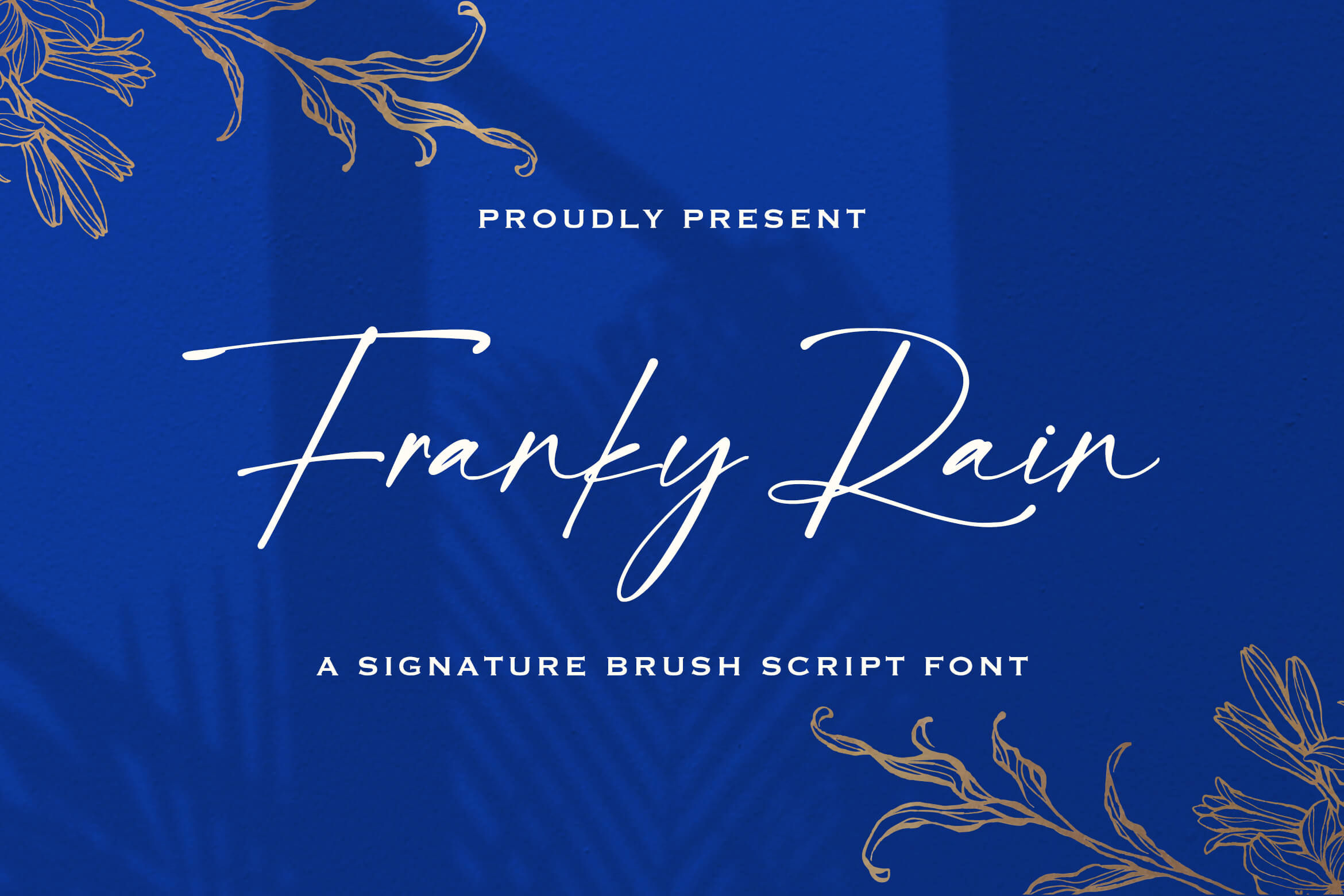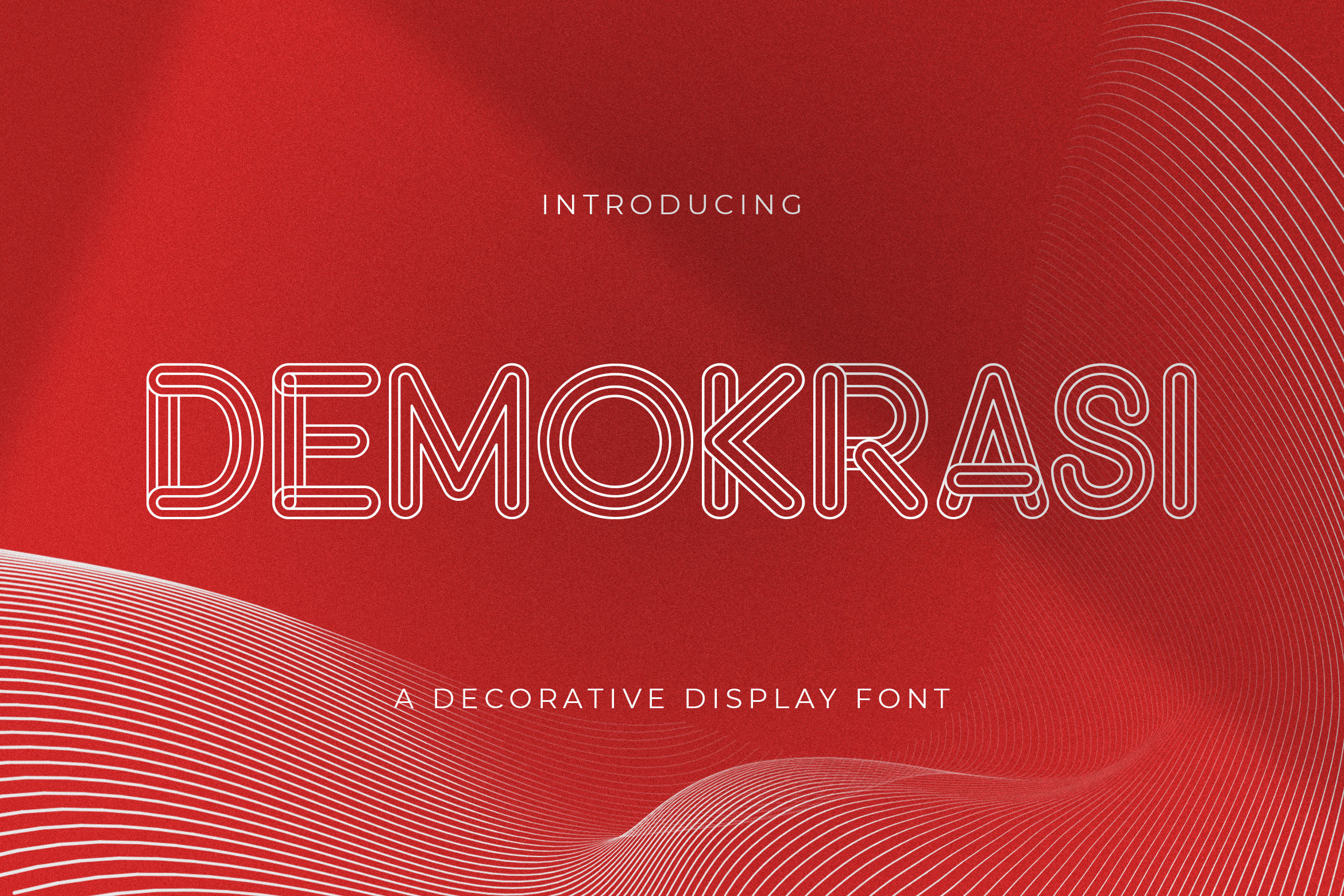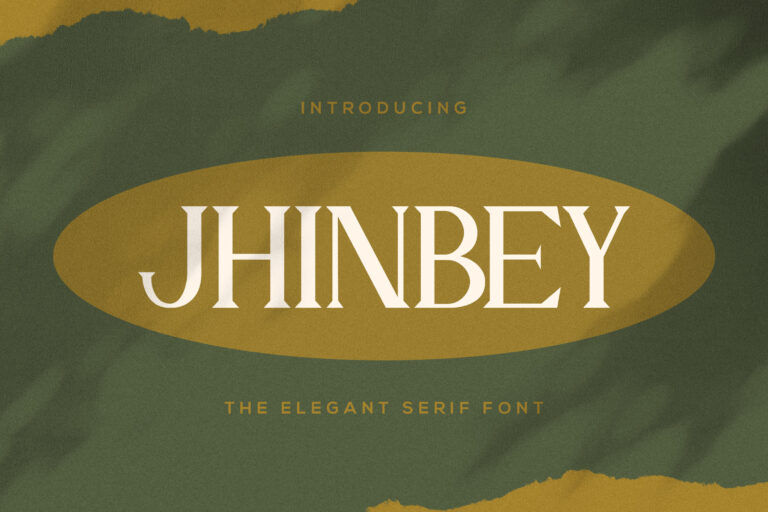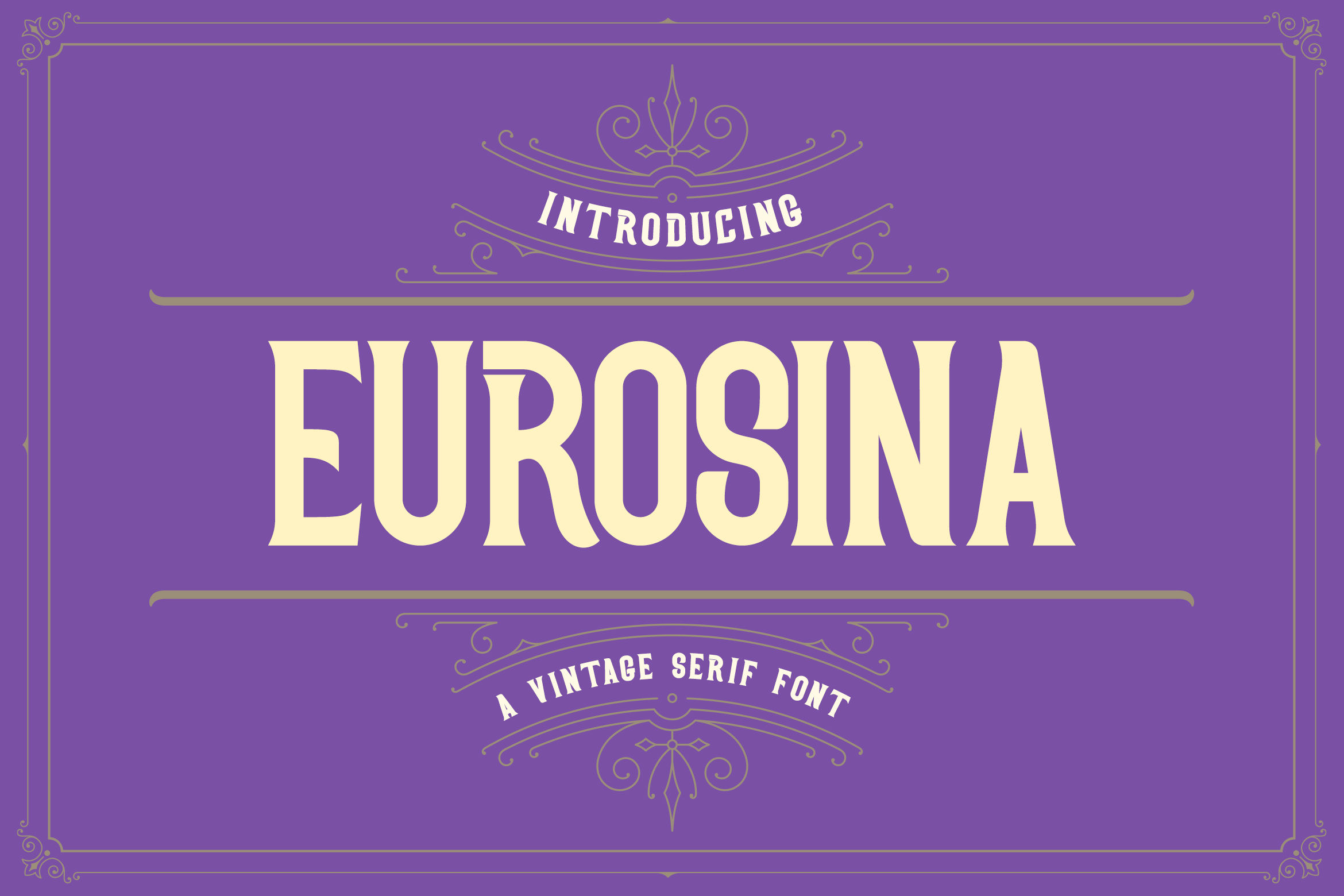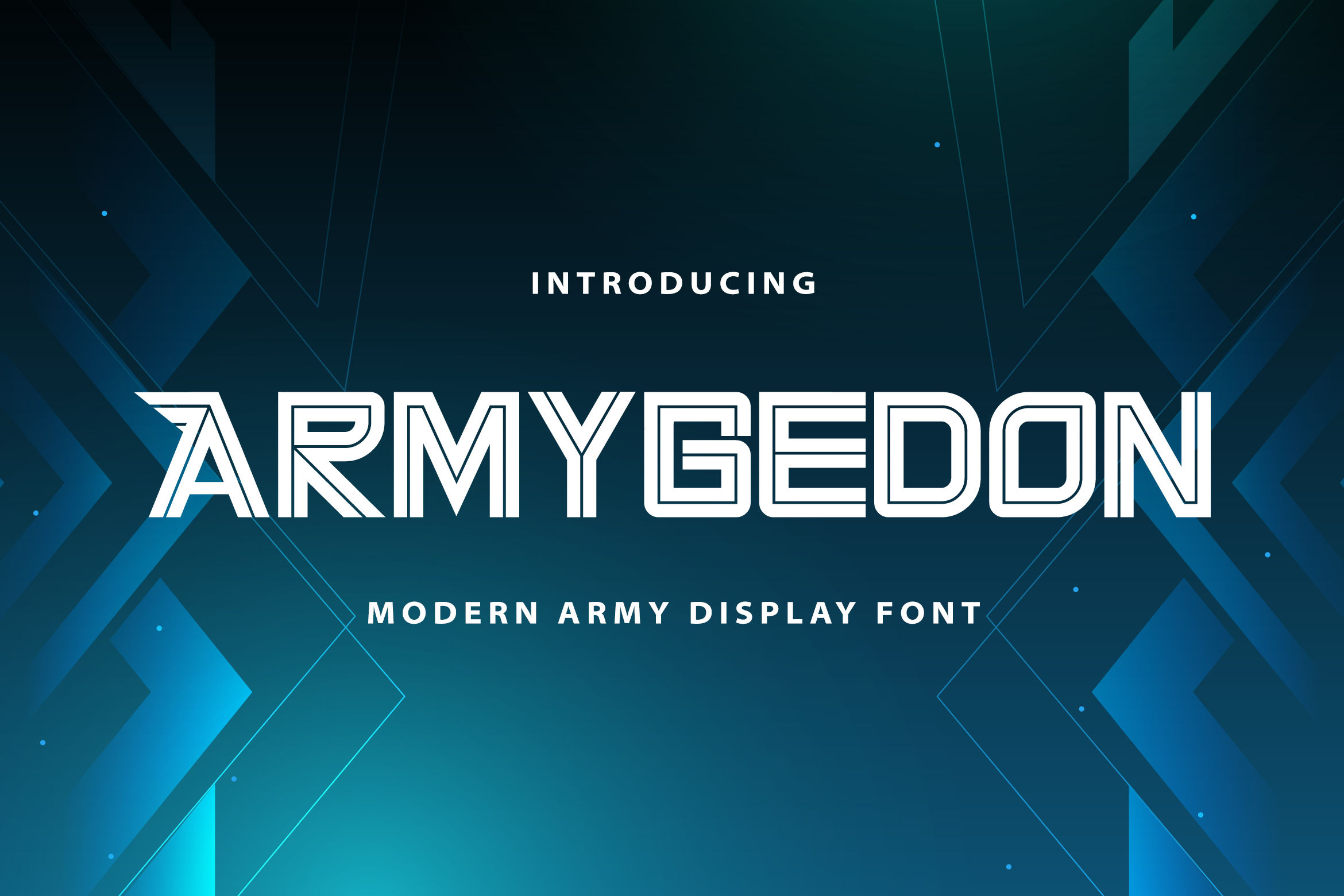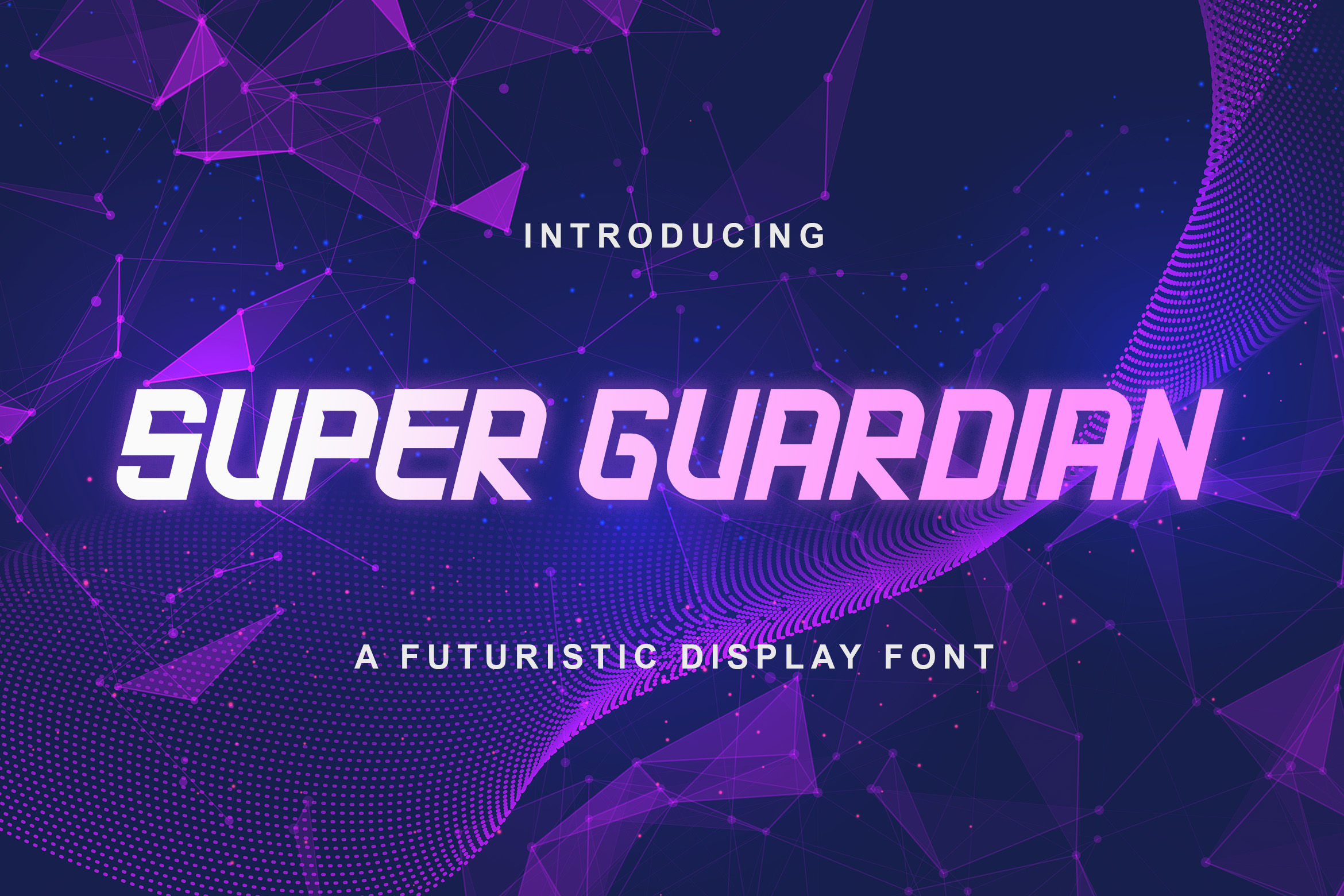
Your creative work deserves a finishing touch that protects your creative output. Hence, a watermark font ensures your property is safe while subtly promoting your identity. It’s considered a way to elevate your portfolio while adding authority.
Key Takeaways:
• The best fonts for watermarks typically balance sharp legibility with sophisticated aesthetics.
• Inline and multiline styles provide a modern, architectural look that transforms simple protective marks into impactful design statements.
• More than security, using a refined watermark typeface maintains an expensive, curated brand personality.
• Common watermark typefaces include serifs, sans serifs, script or signature, and a custom font.
Why You Need a Premium Watermark Font
Finding the best font for a watermark is often derived from the project itself, making it match the theme. Think of easily recognizable fonts as watermarks, usually small or in a shadow style. Take a look at our take on watermark typefaces to spark your creativity.
1. Mediqa
Mediqa is an elegant serif typeface with thick strokes and prominent letterforms. This font provides an elegant architectural style, turning a simple security measure into a brand statement.
2. Eurosina
Eurosina is an all-caps font with distinctive letterforms that can maintain brand identity even in the shadow. This Victorian-style font also elevates your imagery with a high-end aura.
3. Armygedon
When looking for a watermark font with an adventurous vibe, grab Armygedon. This fantasy display font uses parallel lines and winged accents for a more stylish watermark.
4. Super Guardian
Super Guardian provides futuristic and highly legible letterforms for your watermarks. Its slight slant helps differentiate itself from other texts, allowing better readability.
5. Honeymoon
Honeymoon adds modern touches to a handwritten script. Its thick, stylistic letters can articulate the refined essence of your brand without hindering the imagery.
6. Westerniya Serif
Westerniya Serif is a formal yet artsy typeface. This angular serif font articulates established corporations that appreciate creative works.
7. Mugen Ragi
Mugen Ragi provides a signature look for your watermark. Designing your watermark using a script or signature font like this allows for versatile use, including on imagery or documents.
8. Alatas Script
Alatas Script fits more for niche creative studios that sell handcrafted or sincere products. Its delicate lines and warm feel can just be plopped into an image without ruining the picture.
9. Nomer Samvilan
Nomer Samvilan is a stylized typeface featuring tall, condensed letterforms with a distinct rectangular shape. This font has a distinct look for easy recognition, and its simple swashes add fluidity and artisanal vibes.
10. Franky Rain
Franky Rain is a signature font that emphasizes fluid penmanship. Using it as your watermark font evokes a sense of heritage, warmth, and an intimate feeling.
11. Demokrasi
A hollow typeface like Demokrasi is perfect for watermark works. Its parallel strokes compensate for its thickness. Using this font, your imagery can integrate into its letterforms.
12. Santtuy
Santtuy is a bulky brush script font that has predominantly casual vibes but in a modern style. This font focuses on its overall look, putting emphasis on the watermark as a whole rather than just the text.
13. Phoenix Gaming
Phoenix Gaming is a grandiose, futuristic typeface that better acts as an emblem-style watermark. Its clean, crisp cuts evoke a masculine and modern look, while its diagonal accents add agile movement.
14. Rowney Kahfi
Another Victorian-style font that features a distinct look from the typical text font. Rowney Kahfi uses consistent kernings, angular strokes, and occasional swashes to stylize your watermark.
15. Renjany
Renjany features chic and elegant letterforms. Its simple design maintains its readability while in the shadow form as your watermark.
16. Angela Hasuky
Angela Hasuky is an upright script with beautiful floral aesthetics. Its natural strokes maintain legibility as a watermark, while its letterforms also beautify your design.